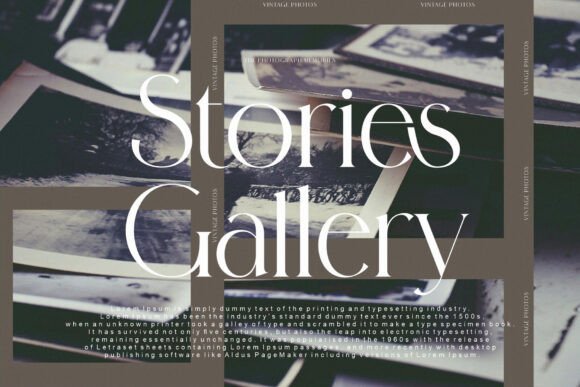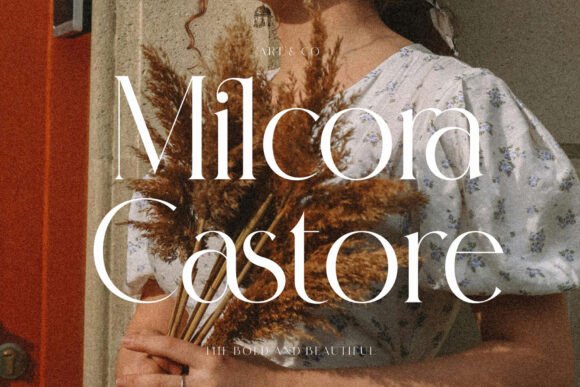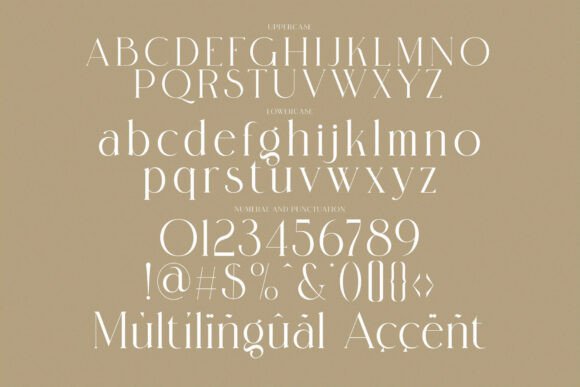
Introduction to Muilran Font
As a designer, you’ve probably experienced that moment when a single font can elevate an entire creative project. You’re staring at a blank canvas, trying to bring a concept to life, and then – like a breath of fresh air – you discover a font that perfectly captures the essence of your vision. For me, that font is Muilran Font, an elegant ligature serif modern font that exudes the beauty of fresh blooms and timeless elegance.
With its bold yet refined ligatures, Muilran Font stands out as a sophisticated and feminine typeface that’s perfect for upscale designs, whether for florals, fashion, or high-end branding. This high-quality design resource offers a level of sophistication and refinement that’s hard to find, making it an invaluable addition to any designer’s toolkit.
Key Features of Muilran Font
- Unique, modern font style with a transparent background, ideal for graphic designers and digital artists.
- Includes 6 styles: Regular, Italic, Bold, Bold Italic, Outline, and Fill, to suit various design needs.
- Perfect for designers looking for a high-quality, versatile font to elevate their creative project and make it stand out.
Honest Review: Muilran Font
I recently had the chance to work with the Muilran Font, and I’m excited to share my thoughts on this design resource.
What works well is the high quality and unique style of the font. The Muilran Font has a great, creative feel to it that’s perfect for a wide range of projects, from graphic design to digital art. The font also features a transparent background, which makes it easy to use in various design scenarios.
- ✨ Unique and high-quality design
- ✨ Perfect for creative projects and design enthusiasts
One limitation I found is that the font might not be suitable for all types of projects. The style can be quite bold and eye-catching, so it’s best used for projects where you want to make a statement.
Overall, I was impressed with the Muilran Font. It’s a great addition to any design library, and I’m glad I got to try it out. If you’re looking for a unique and high-quality font for your creative project, I’d definitely recommend checking it out.
Tips for Getting the Most Out of Muilran Font
For a high-quality look, use the Muilran Font with a transparent background to create a clean and minimalist design. Experiment with different font sizes and styles to add visual interest to your creative project.
The Muilran Font is ideal for use in logos, branding materials, and digital products. Its clean and modern design makes it perfect for a wide range of creative projects, from business cards to website headers.
Alternatives to Muilran Font
Alegreya is a high-quality serif font ideal for creative projects requiring a sophisticated touch. Its elegant design makes it perfect for use in magazines, books, and other printed materials. When to use: For formal and professional designs, especially those that require a touch of elegance.
Compared to Muilran Font, Alegreya has a more classic and traditional feel, making it suitable for designs that require a sense of timelessness. Its high quality and wide range of weights make it an excellent choice for designers.
Lato is a modern sans-serif font that offers a clean and minimalist design. It’s perfect for use in creative projects that require a clear and easy-to-read typography. When to use: For digital designs, such as websites, apps, and social media platforms.